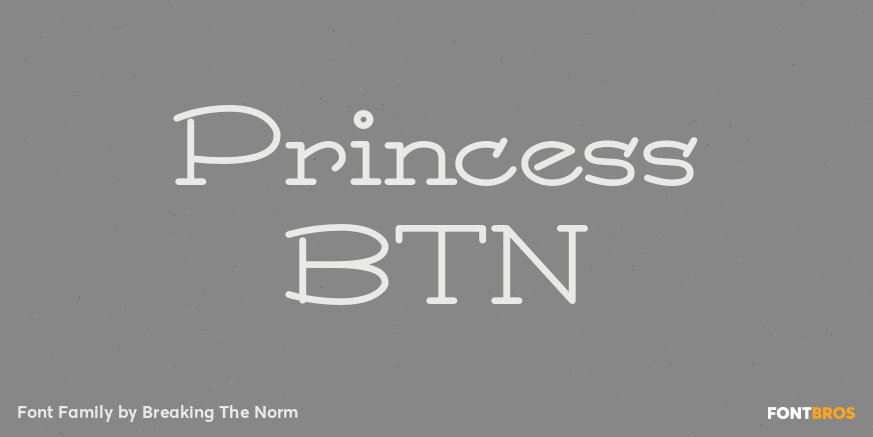
HomeFont BrosArt Deco (1910-1935)Princess BTN Art Deco (1910-1935)Serif Princess BTN FacebookXPinterestWhatsApp 1 of 1 About Princess BTN Princess was inspired by Art Nouveau forms and 1910s flavor. Comes complete with a Royal bi-line weight.  DOWNLOAD ON FONT BROSThis font is sold and delivered by Font Bros. Font Canyon may earn a commission if you buy through this link. People also explored Alligator Font Sanderyna Font Central Park Font Dogmatic Font Adelia Font Jewellerya Font Festival Font Selomitta Font After Play Font 214 0 TagsPrincess BTN Font Previous articleSweater SchoolNext articleBlythe LEAVE A REPLY Cancel reply Comment: Please enter your comment! Name:* Please enter your name here Email:* You have entered an incorrect email address! Please enter your email address here Website: Save my name, email, and website in this browser for the next time I comment. Personal Use Free Mika Personal Use Free Read more about this font Eloquence Personal Use Free Read more about this font Airmole Personal Use Free Read more about this font Tide Personal Use Free Read more about this font BLOG Modern Sans-Serif Fonts That Brands Love in 2025 In 2025, modern sans-serif fonts remain a top choice for brands looking to project clarity, professionalism, and... How to Cut Any Font on Cricut: Convert a Font to SVG (Free) Free vs Paid Fonts: Why Investing in Premium Fonts Is Worth It Top 10 Handwritten Fonts That Elevate Your Designs